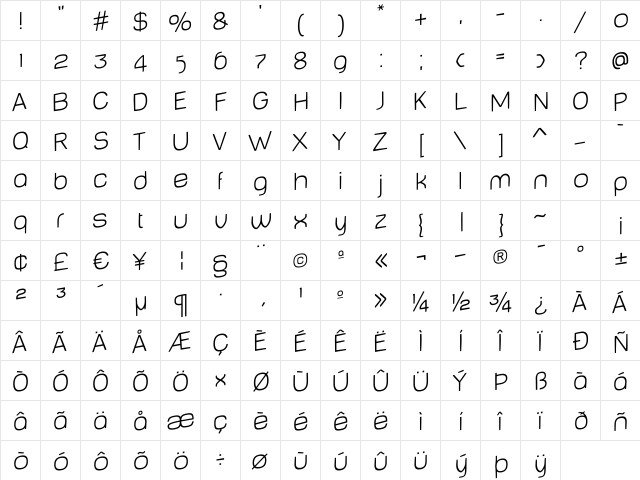
Baby MineThin Jumping Regular Font Preview
Baby MineThin Jumping Regular
Baby MineThin Jumping Regular Font Details
Design Context for Baby MineThin Jumping Typeface
Baby MineThin Jumping is a composed and adaptable typeface that performs quietly and consistently across a wide range of design contexts. Its slender proportions lend an understated elegance to any composition.